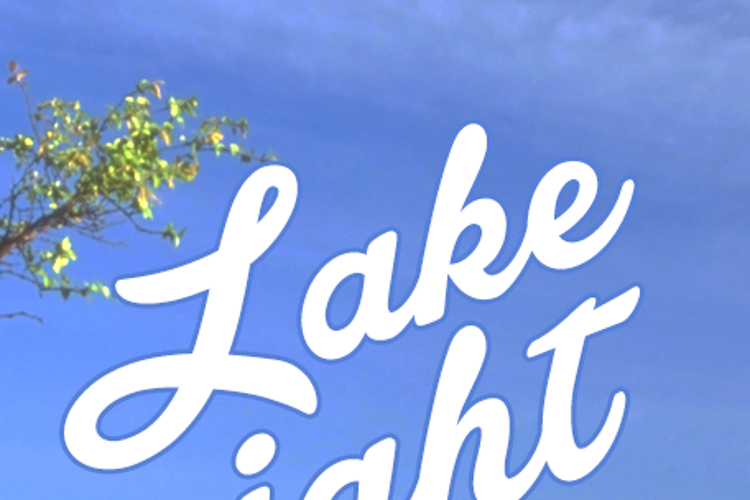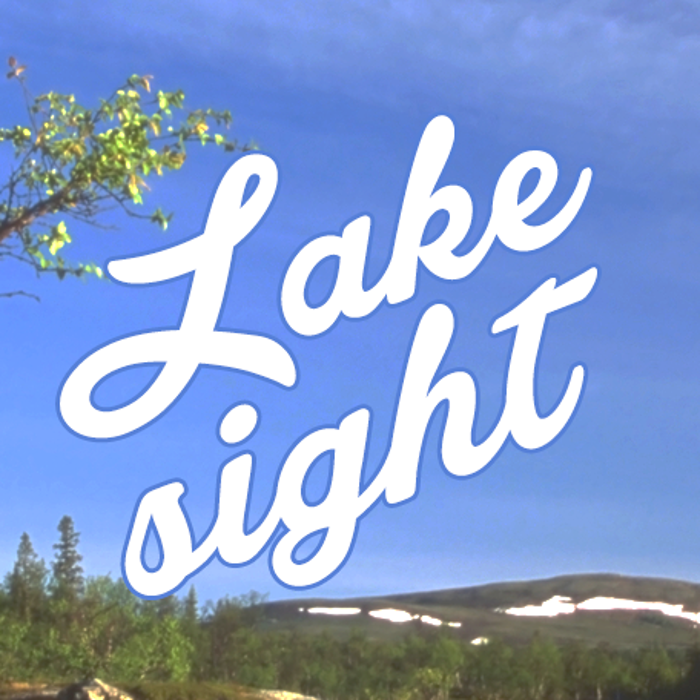
Lakesight Font
Kinda looks like my handwriting except way to thick.!.!.
I want to use lakesight for texing
Nice font, love it
I like it!!!
This font is awesome! If it was slightly rounder and little more.... Fancy? Then I would love it even more! I give it... ★★★★✩ (Four stars, in case you messed it up >.<) Keep up the great work! 😄
By far my favorite font. I downloaded a bunch of fonts to paint a cooler, and kept going back to this one because I love it so much!
It would be even better is you could use numbers
It's about time someone made a bold cursive font that is still clean and easy to read, well done! This one is sure to be popular!